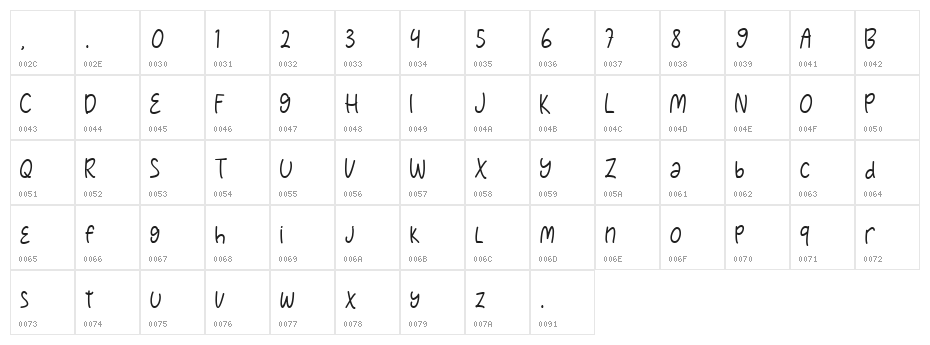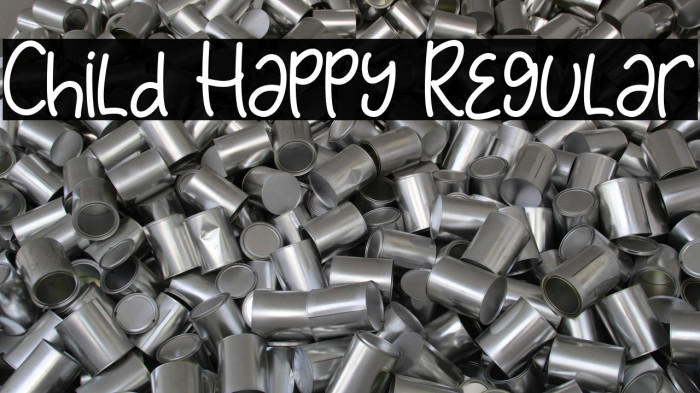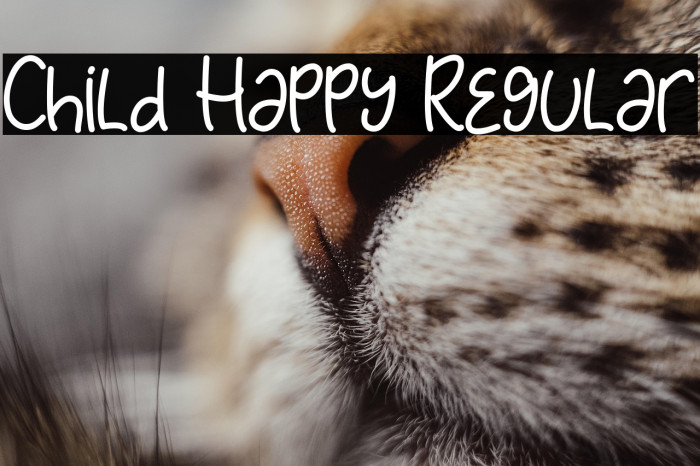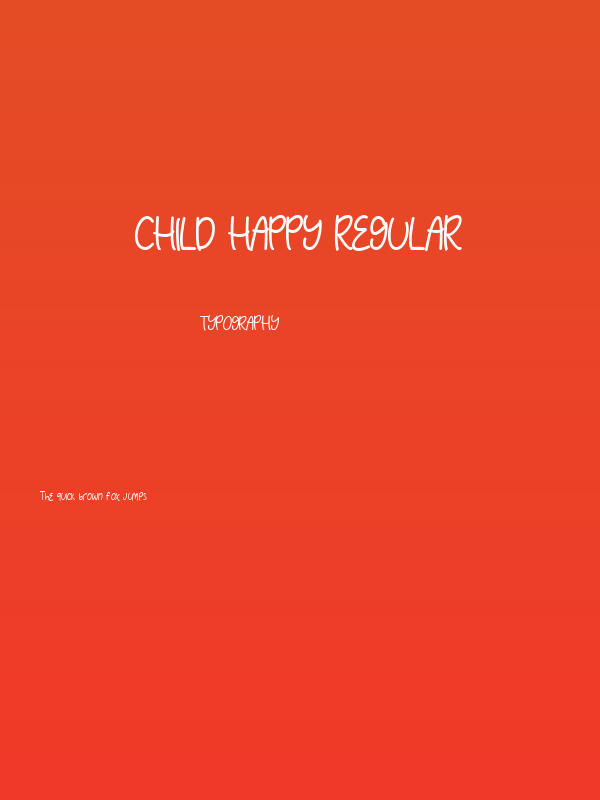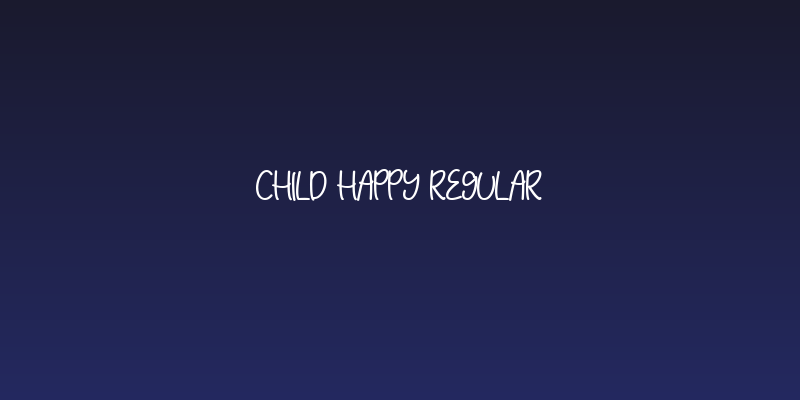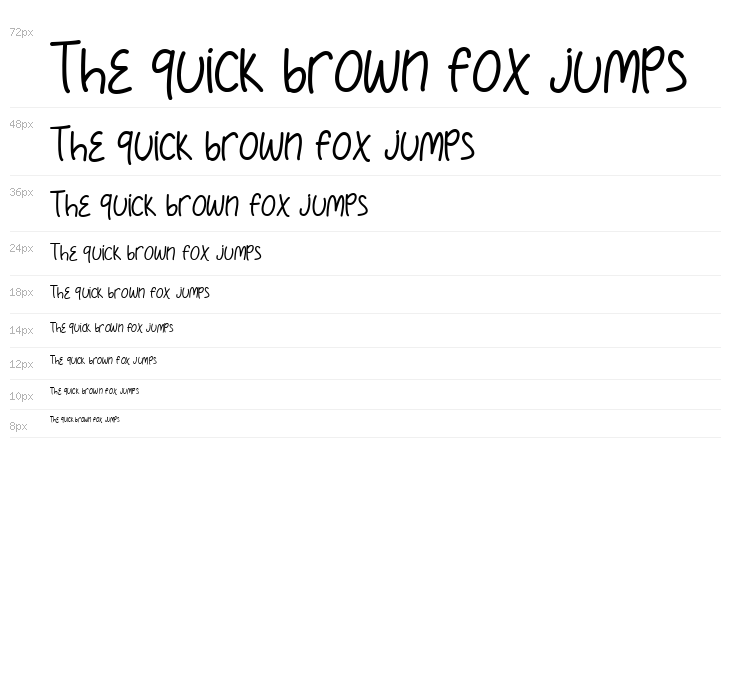
Child Happy Regular Font
Child Happy Regular Description
A playful and informal handwritten font with a casual and friendly appearance, featuring rounded edges and a slightly uneven baseline.
| Use Case | Headlines, Informal text, Children's content |
| Proposed Projects | Children's books, casual invitations, playful branding. |